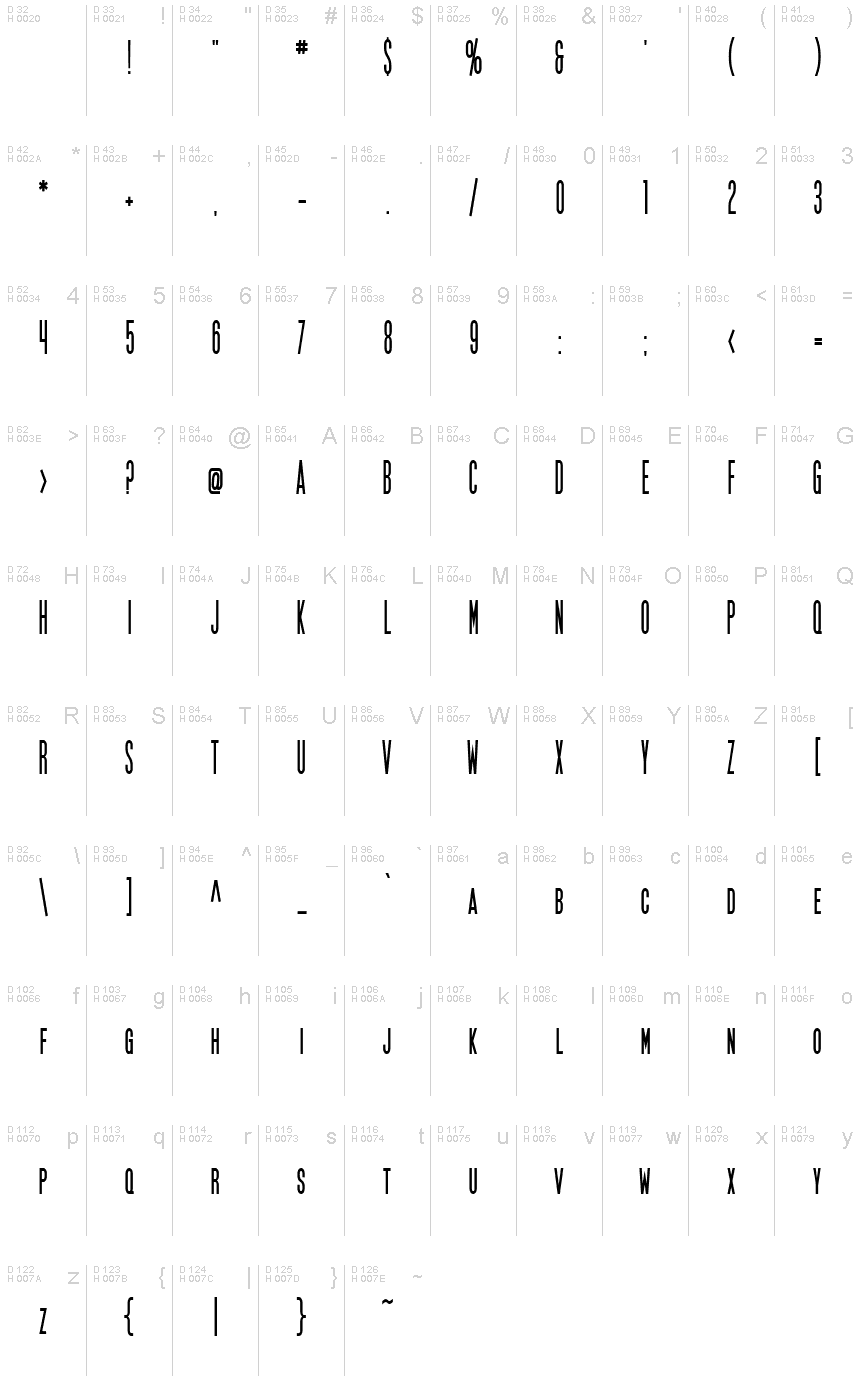
SF Movie Poster Condensed Bold
SF Movie Poster Condensed Bold, a standout creation from ShyFonts Type Foundry, is a sans serif font that carries the essence of cinematic drama and flair. With its light font weight and extra-condensed width, this typeface offers a sleek and highly legible design, perfect for making a bold statement in any visual composition.
Crafted with precision, the SF Movie Poster Condensed Bold exudes an aesthetic appeal that is both modern and versatile. Its clean lines and unembellished forms make it ideal for high-impact headlines or dynamic branding materials where clarity is paramount. Whether used for film titles, advertising campaigns, or editorial designs, this font's condensed proportions enable designers to maximize space without sacrificing style.
The SF Movie Poster family provides an array of weights and styles, but the Condensed Bold variant stands out with its ability to command attention while maintaining elegance. This font's potential extends across various creative projects—from print to digital—demonstrating its adaptability in diverse contexts while always delivering a touch of Hollywood sophistication.